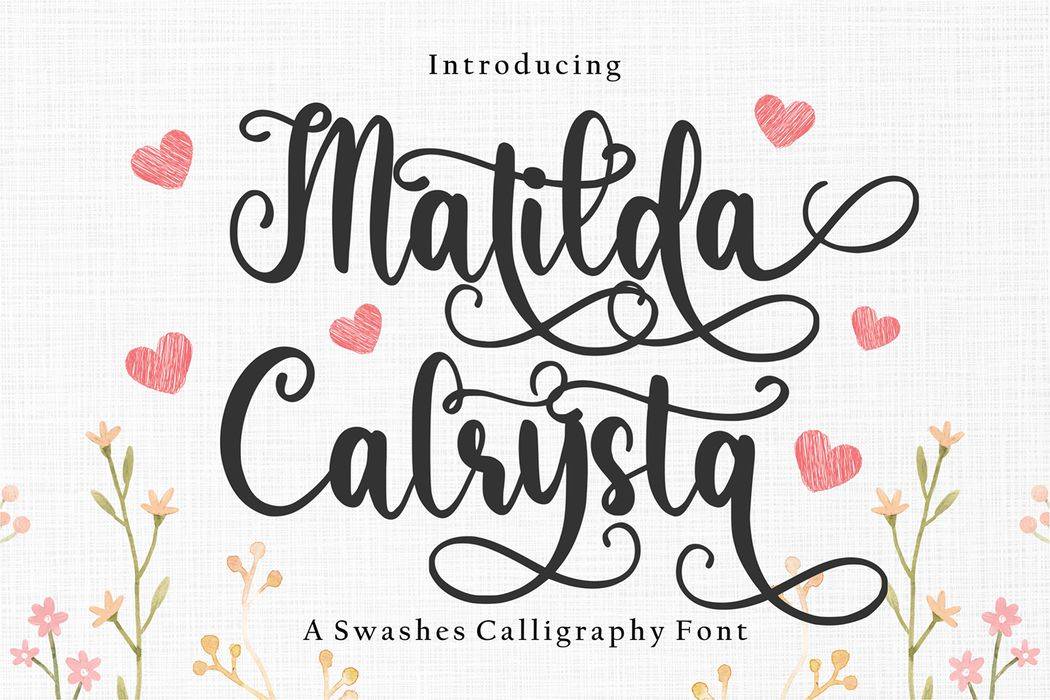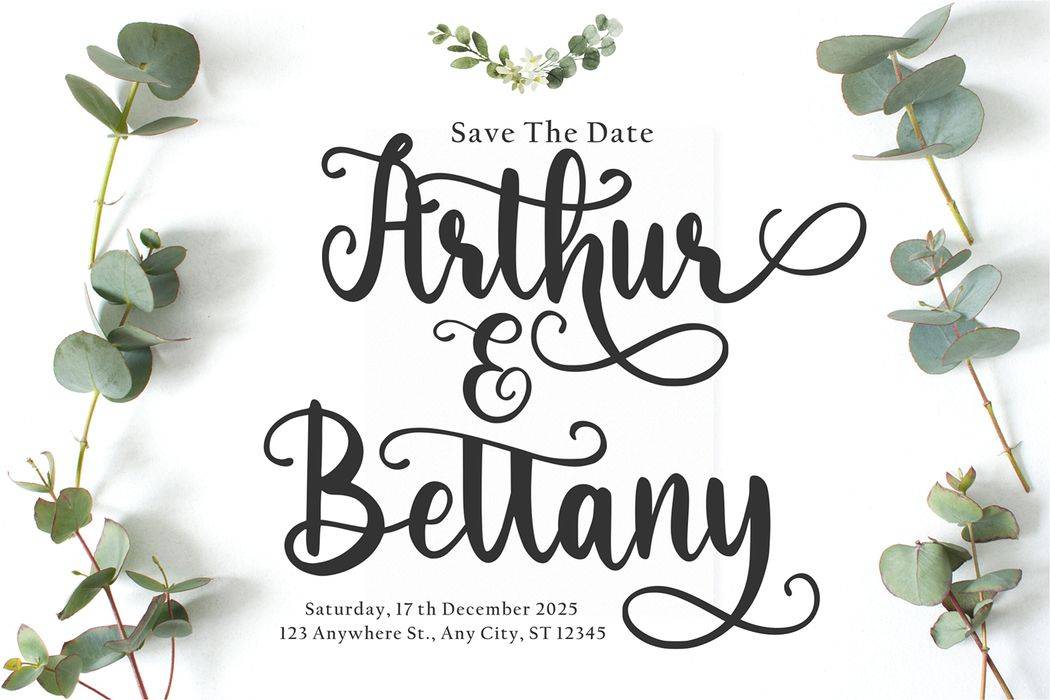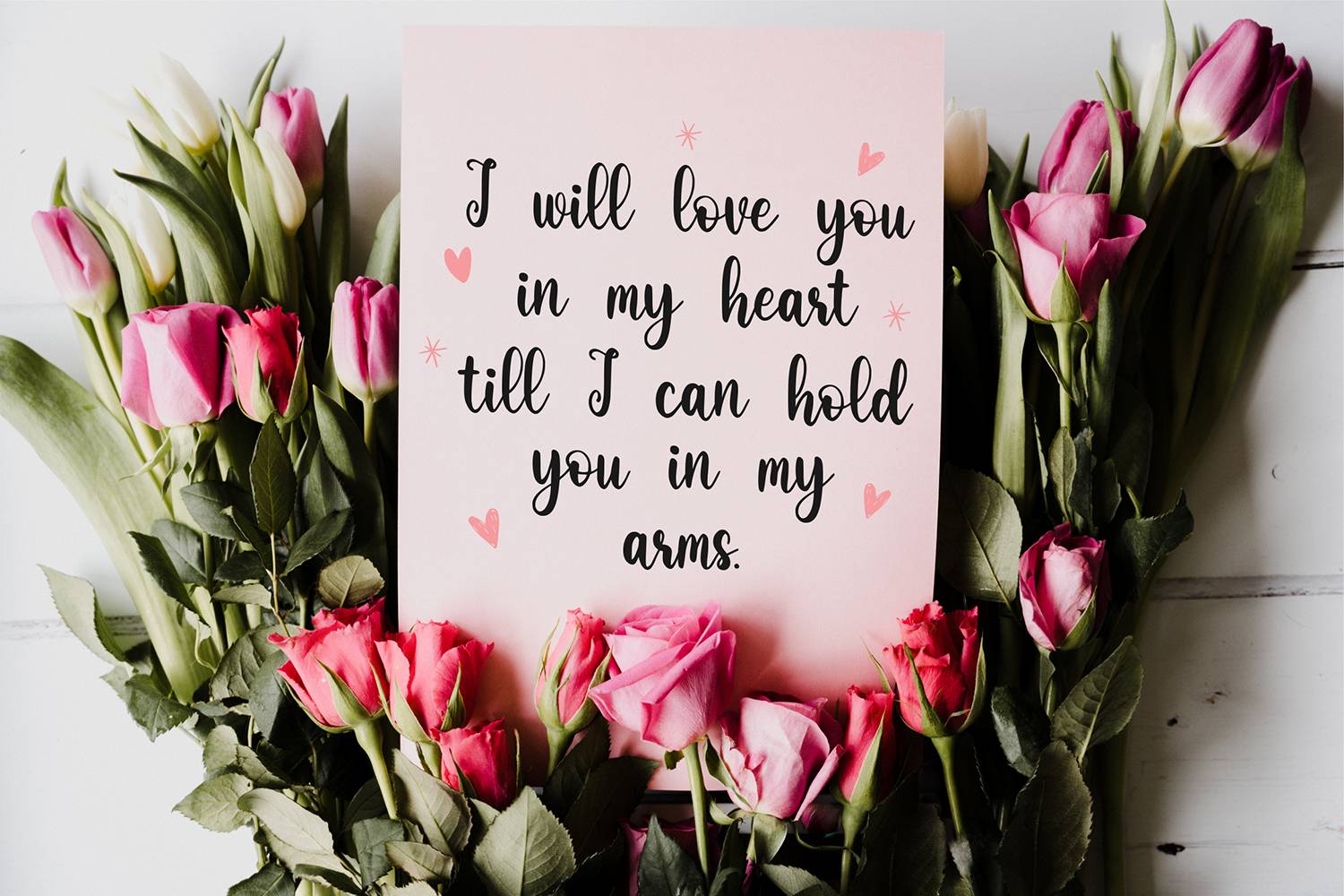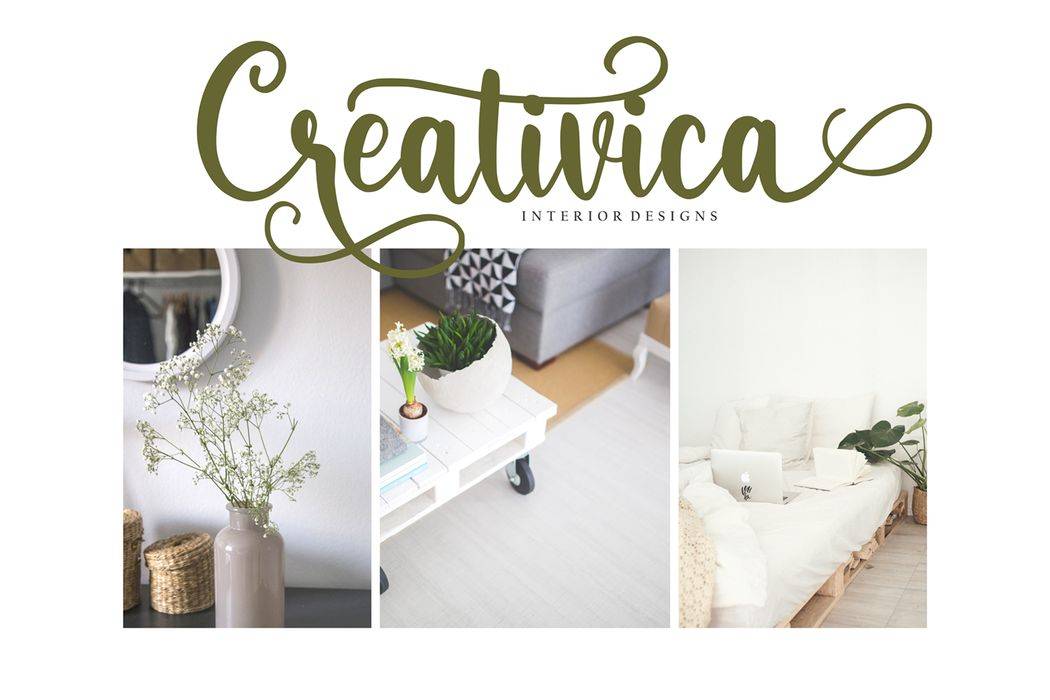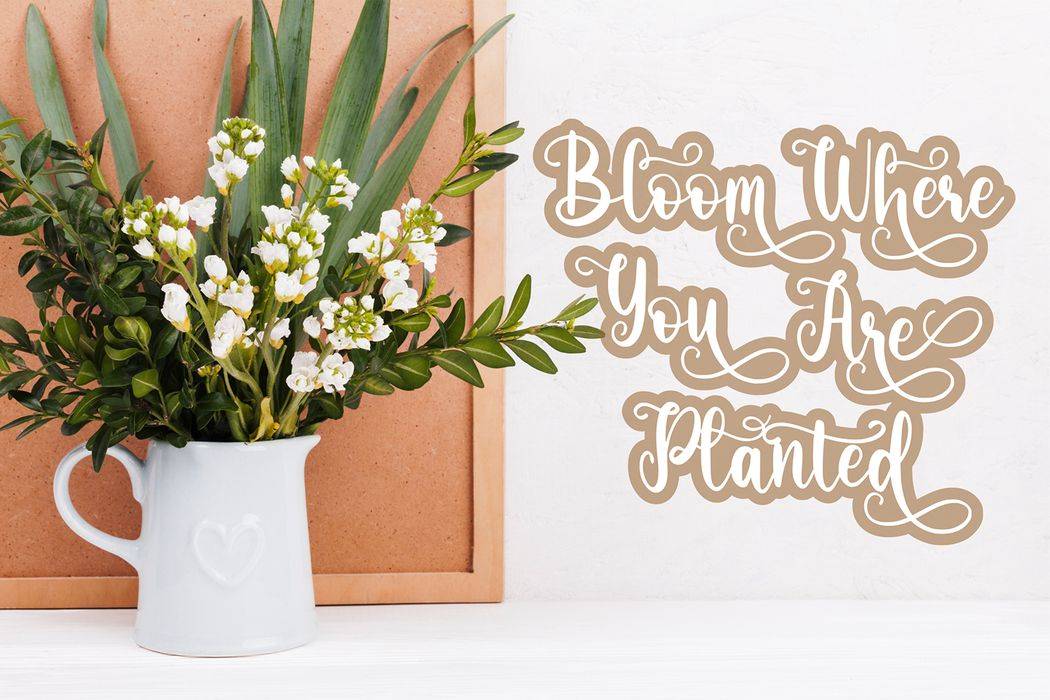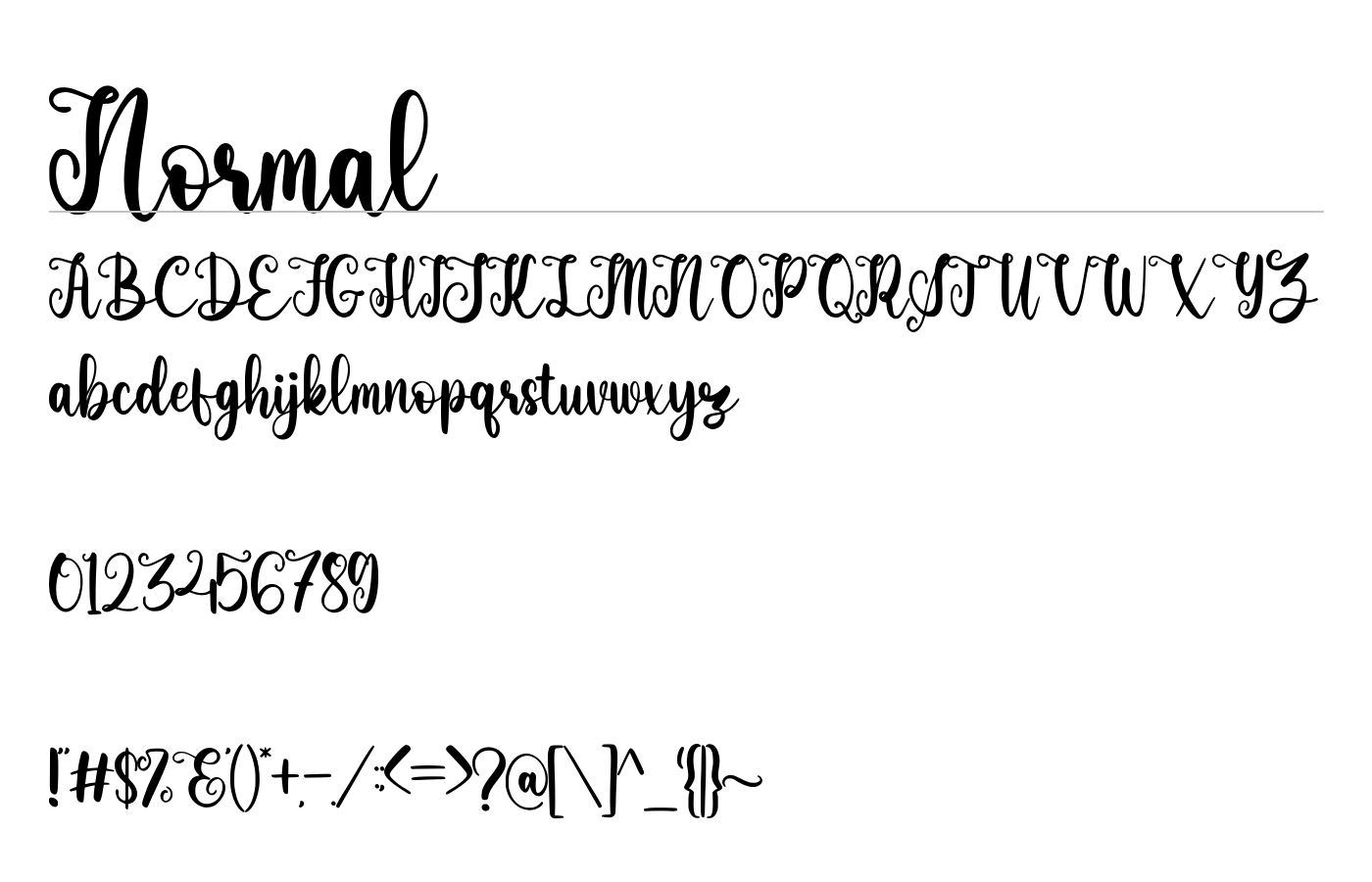
Matilda Calrysta is a decorative script font with elegant, flowing letterforms characterized by playful swirls and contrasting thick and thin strokes, giving it a lively yet graceful appearance. Its upright style with ornate uppercase letters and smooth lowercase shapes makes it ideal for feminine branding, invitations, and creative headlines where a touch of charm and personality is desired. This font works beautifully in designs that aim to convey elegance and creativity without losing readability.
Matilda Calrysta Font